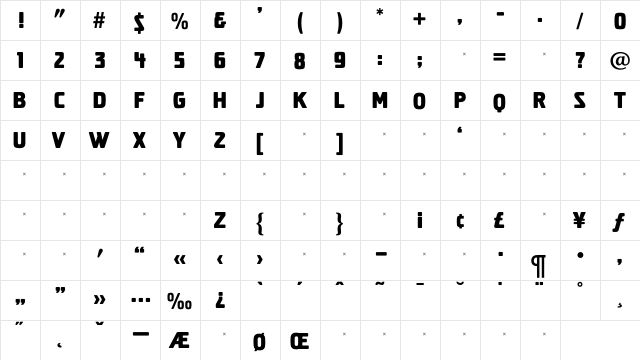
ElstonBold Regular
Design Context for ElstonBold Typeface
ElstonBold offers clean, dependable letterforms without strong stylistic allegiance, making it a practical choice for designers who need flexibility. The heavy weight commands attention and anchors typographic hierarchies.